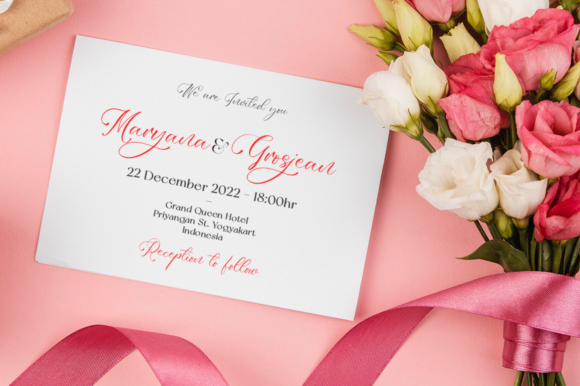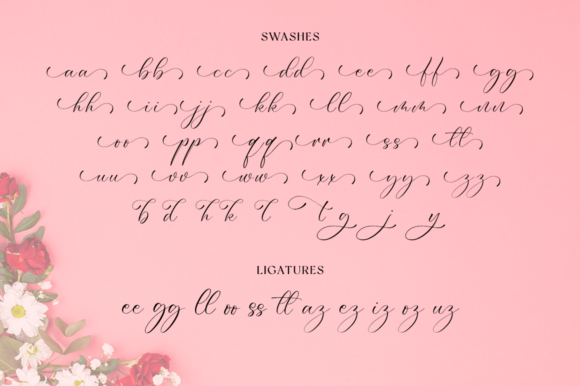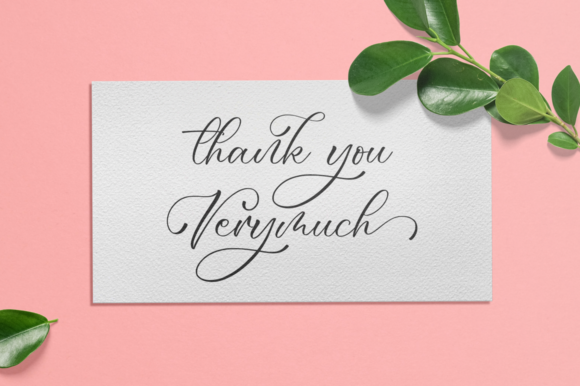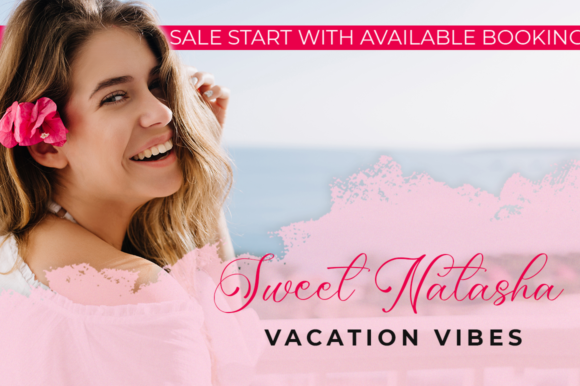
About Beauty Aubrey Font
Beauty Aubrey is an elegant handwritten font that feels both gorgeous and distinct. It looks beautiful on wedding invitations, thank you cards, quotes, greeting cards, logos, business cards, and every other design which needs a customized touch. This font is PUA encoded, which means you can access all of the glyphs and swashes with ease!